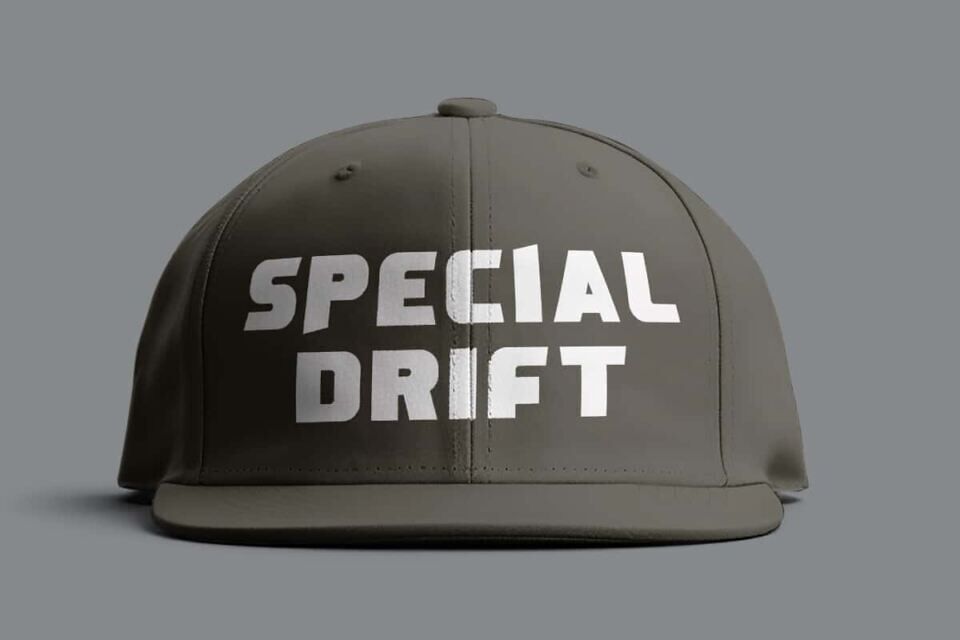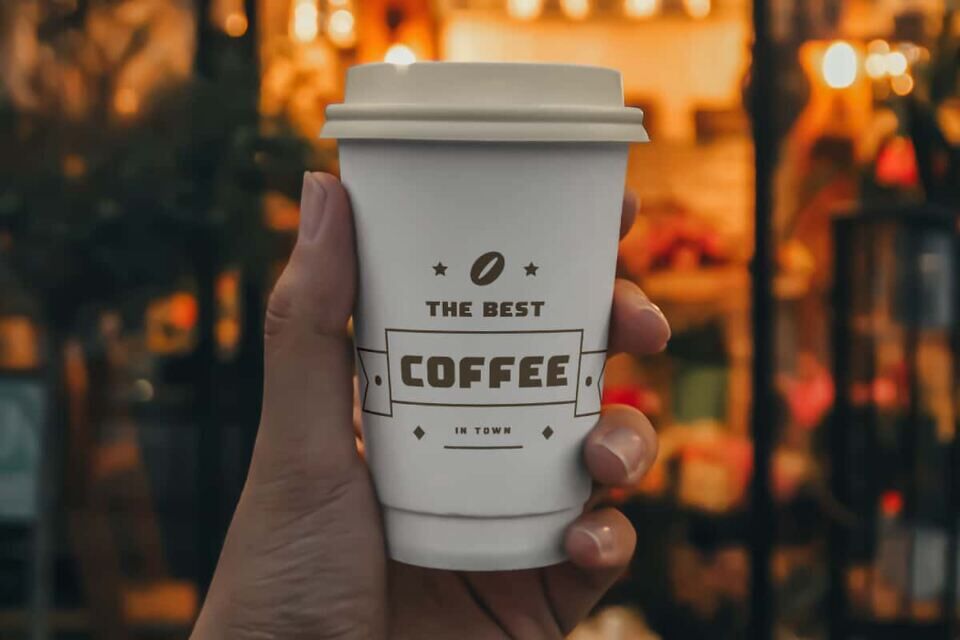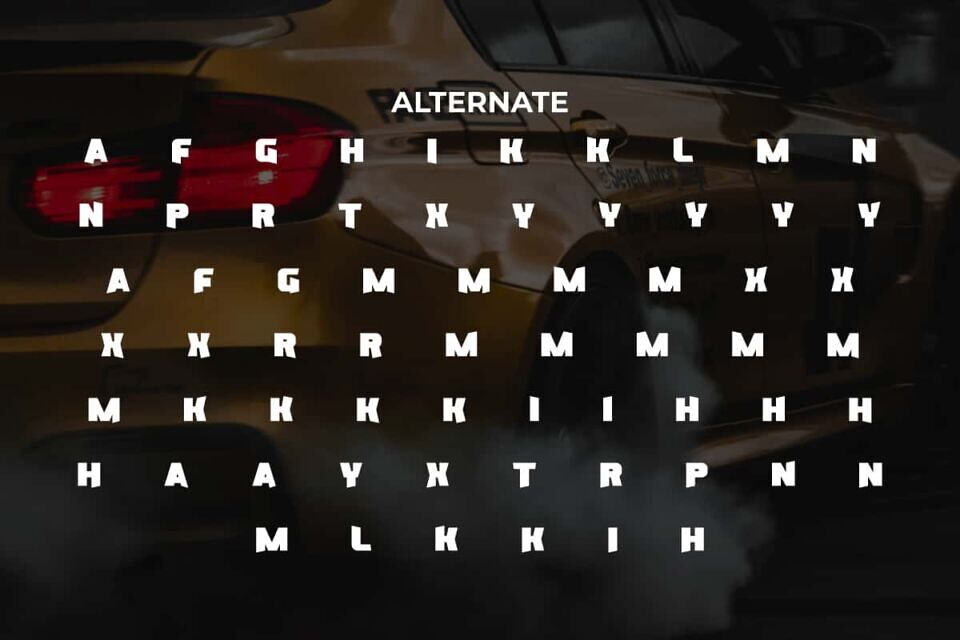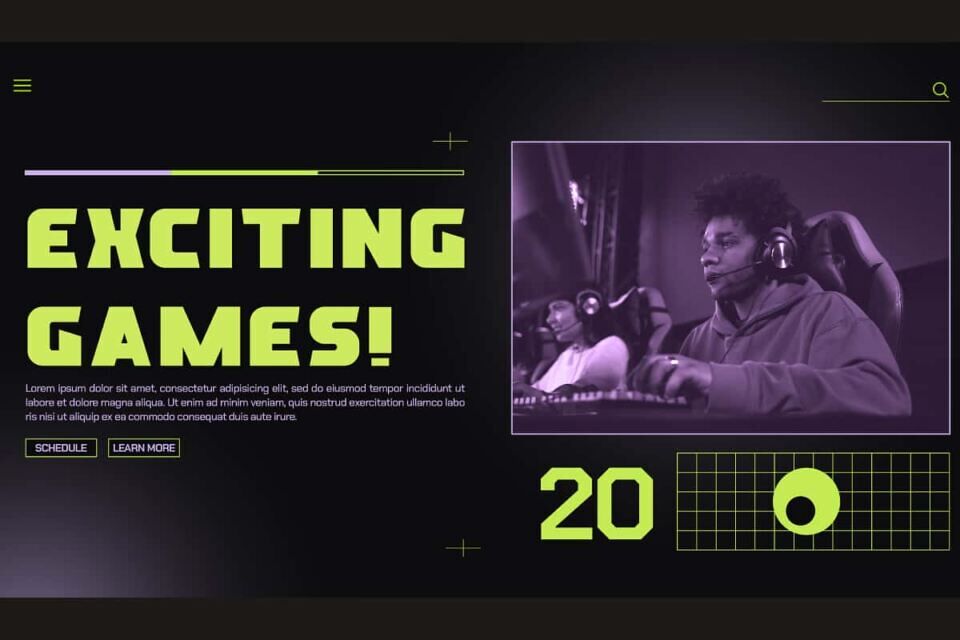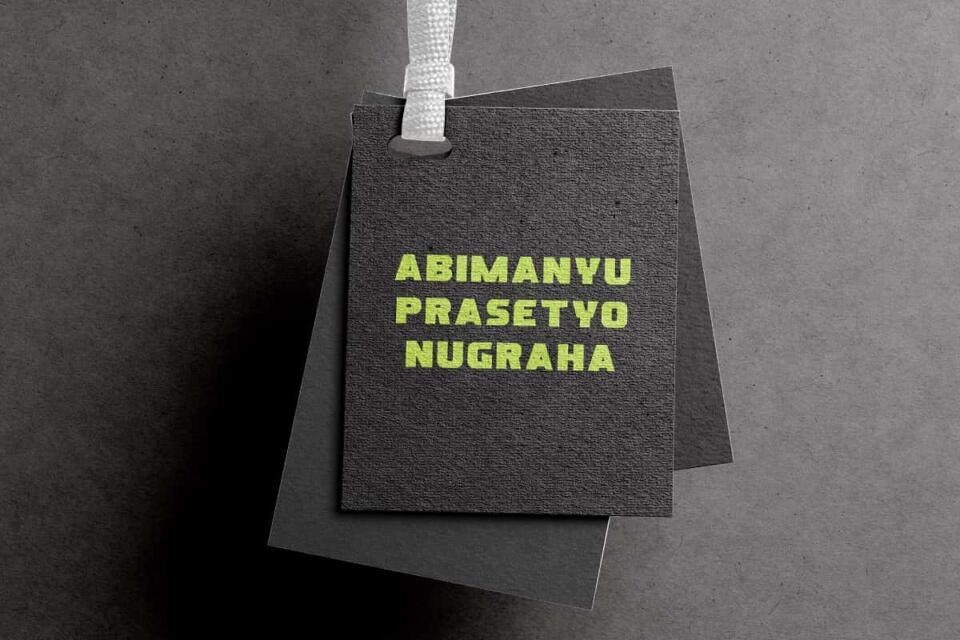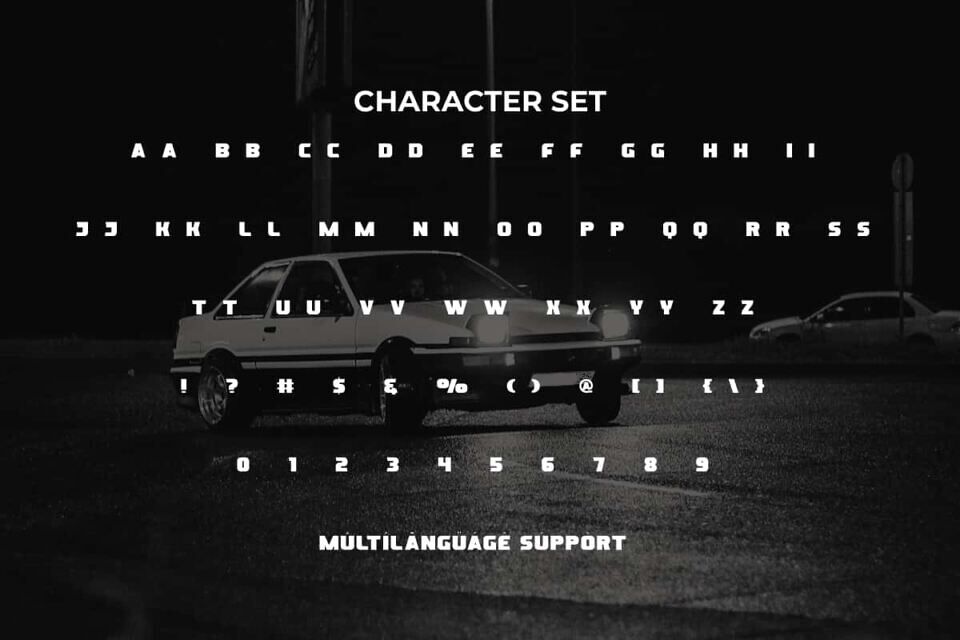
Special Drift Font
Special Drift Font is a bold but fun racing display font with interesting contrast and proportions designed in large sizes with supporting additional characters so that it looks dominant on anything. Perfect for banners, billboard, business card, headers, headline, label tag, mockup, poster, product packaging, screen print, stationery, sticker, template, title, website, and much more.
Special Drift Font includes a complete set of ALL CAPS for both Uppercase and Lowercase letters, Numbers, Punctuation, Symbols and Alternate. This is a bold contemporary typeface with sharp angles presenting a futuristic racing typeface that is truly different but still legible. Use it for accessories and merchandise, clothing brand, coffee shop, game developers, photography, race events, web designer, and many more.